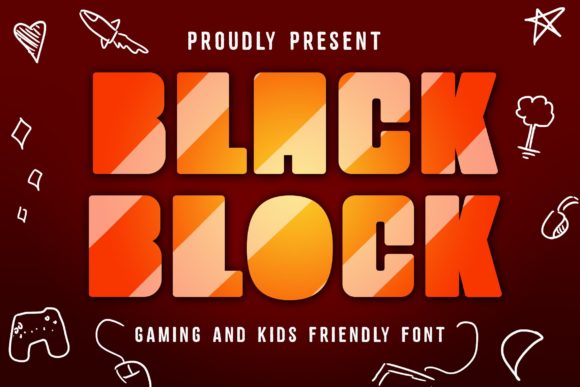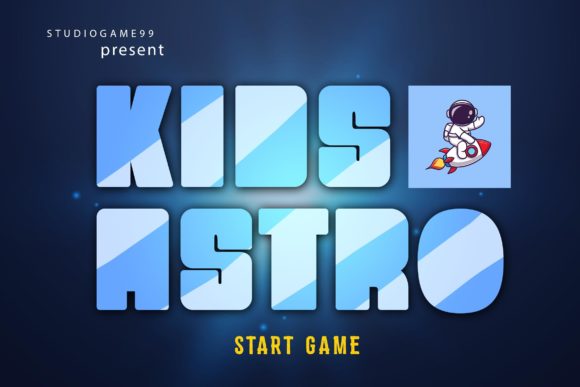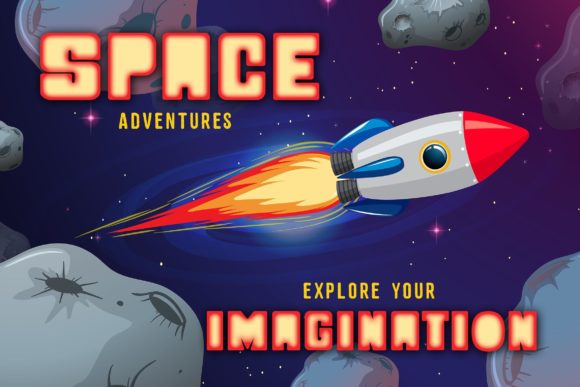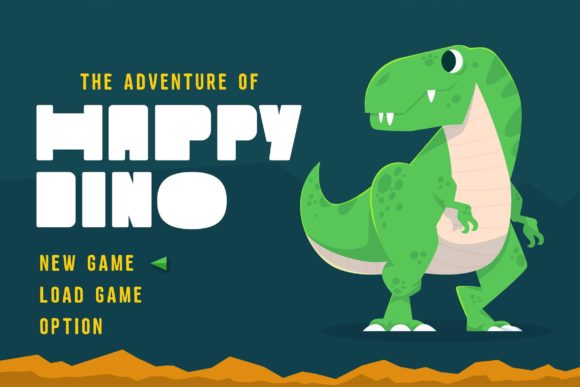
Black Block Font: A Bold & Playful Display Font for Kids & Gaming!
About the Black Block Font
Elevate your designs with Black Block Font, a font that combines sophistication with readability. Black Block is a cool, bold and thick lettered display font. Add this robotic looking font to your creations and they will instantly stand out.
Black Block’s strong, geometric forms make it ideal for headlines, logos, and short impactful statements in branding materials or posters. Its bold presence commands attention, making it perfect for projects needing a powerful visual impact. However, its thick strokes and limited character set render it unsuitable for body text or UI elements requiring high readability.
The font’s robotic, almost monolithic personality pairs well with clean sans-serif fonts like Open Sans for body copy, creating a striking contrast between the headline and supporting text. Alternatively, a playful script font could add a touch of unexpected personality, balancing Black Block’s severity. Avoid pairing it with other heavy or ornate fonts, as this would create visual clutter.
Black Block projects a bold, modern, and slightly industrial feel. It would be highly effective for tech brands, streetwear apparel, or projects emphasizing strength and innovation. Its uncompromising aesthetic is not suited to projects requiring elegance or sophistication.
Black Block Font Usage Examples
Black Block Font Example